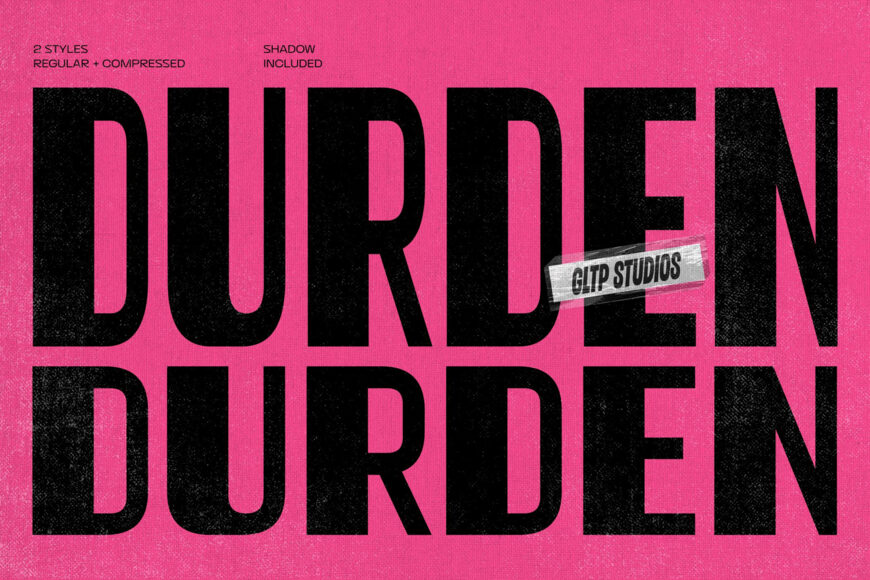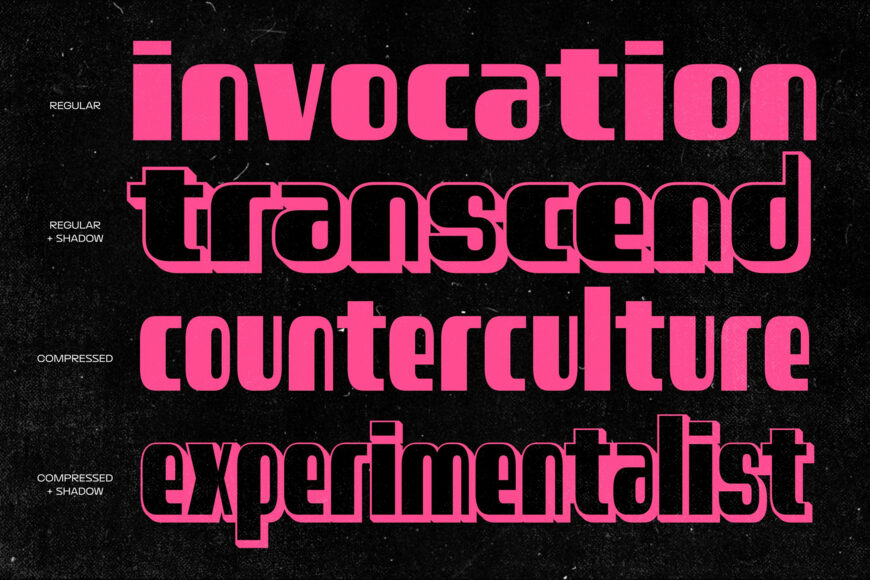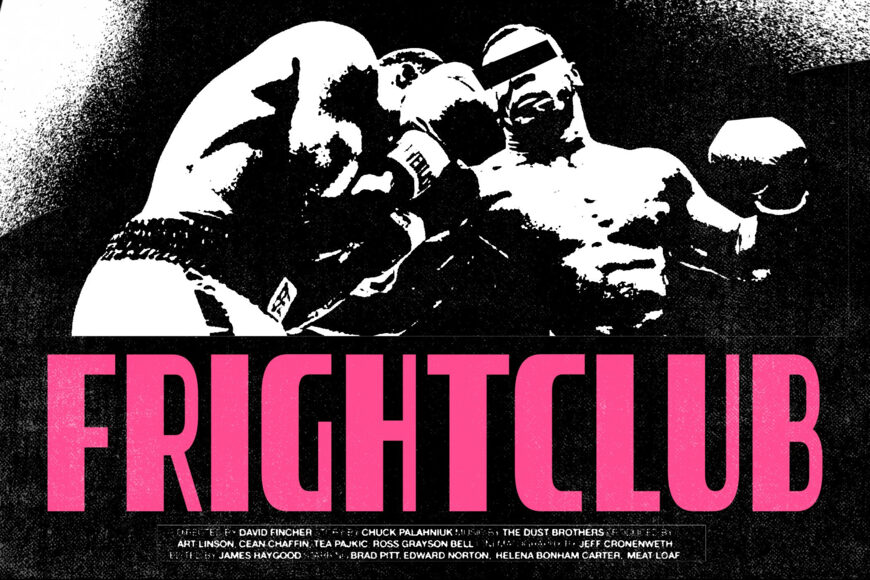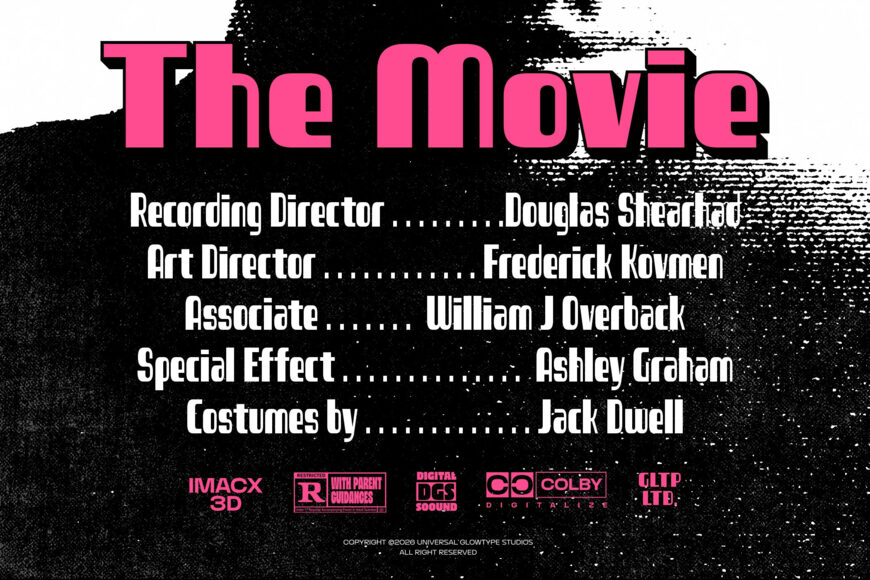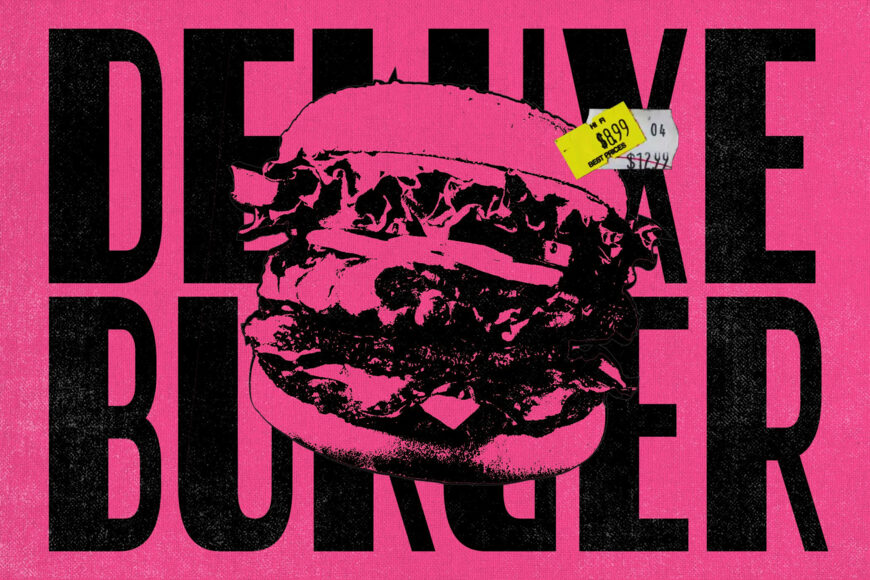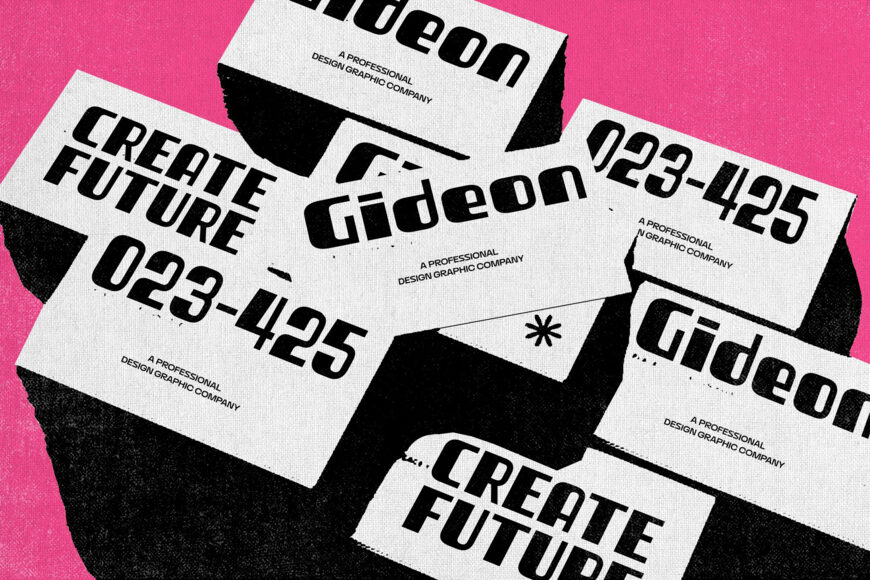
Durden Font
Durden is a bold display typeface built for impact, attitude, and visual disruption. Drawing from the language of underground publishing, protest graphics, punk culture, and uncompromising editorial typography, it combines a forceful condensed structure with sharp proportions and a distinctly contemporary edge.
Durden is accompanied by a Shadow style, designed to extend the primary letterforms into a layered graphic treatment. Used independently or in combination with the main styles, the shadow introduces depth, contrast, and a distinctly poster-driven character—making it particularly effective for expressive typography and art-directed compositions.